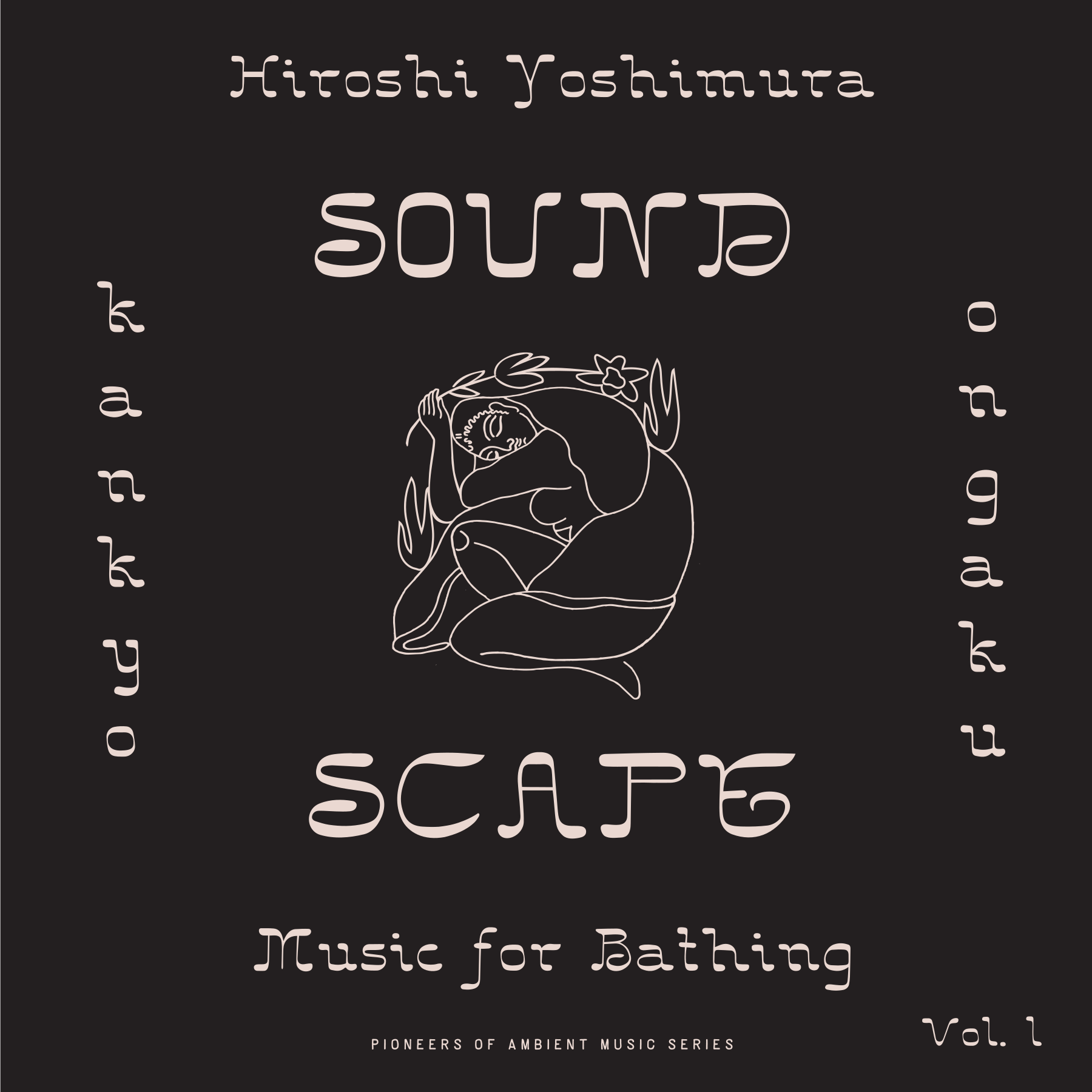
Choya
A swirl of nostalgic calligraphic energy that conjures the spirit of all that’s South of New Mexico and from an era before the present day. Straight from the brush of a skilled and knowledgeable letter maker but with a slight whimsy that suggests relaxing herbs, a few potent pints or too long in the desert. Perfect for many instances.